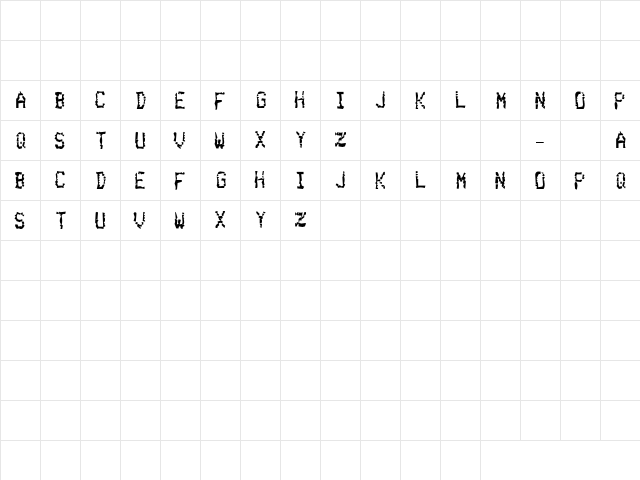
Belching Up Salisbury Steak Regular
Design Context for Belching Up Salisbury Steak Typeface
Belching Up Salisbury Steak is a composed and adaptable typeface that performs quietly and consistently across a wide range of design contexts.